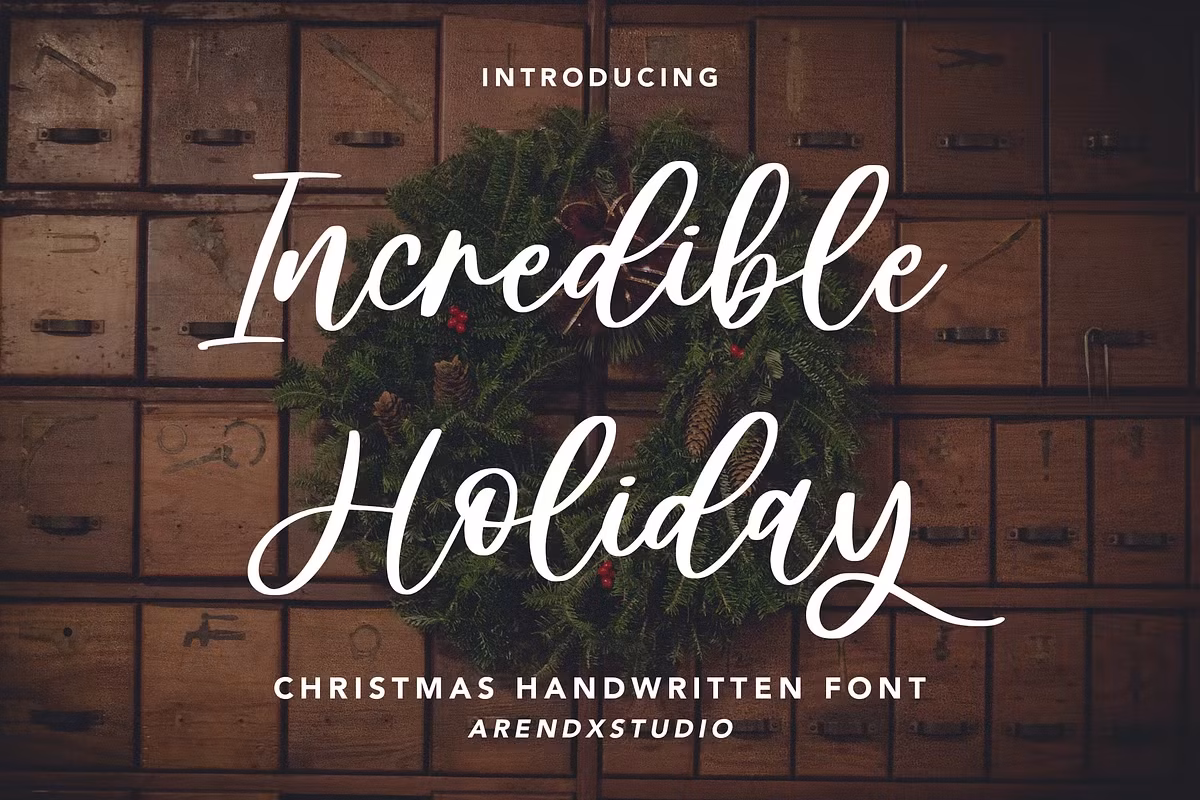
Incredible Holiday – Handwritten Font Free Download is a cheerful and heartwarming script font that captures the joyful spirit of festive seasons and vacation vibes. With its smooth, flowing lines and friendly handwritten style, this font is perfect for holiday cards, travel blogs, gift tags, seasonal branding, and cozy social media graphics.
Designed to feel personal and playful, Incredible Holiday – Handwritten Font Free Download adds a touch of warmth and authenticity to any design. It works beautifully for both print and digital projects where a relaxed, feel-good tone is key.